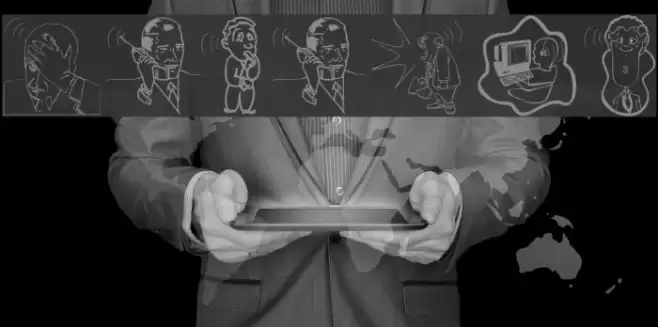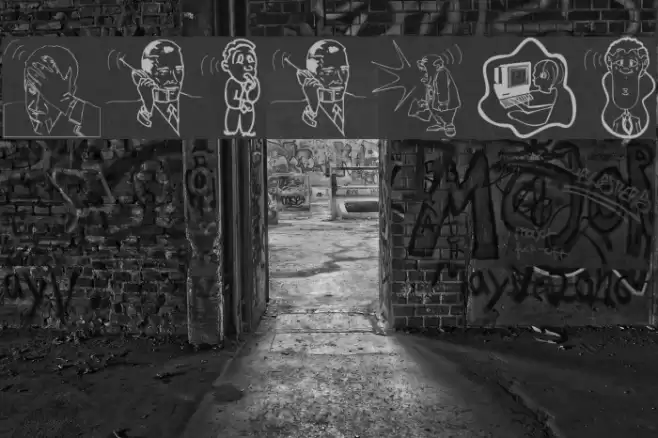
TeleCom Font
TeleCom Description
A decorative dingbat font featuring cartoon-style illustrations of people communicating via various telecommunication devices and gestures, including phones, computers, and expressive body language. The images are outlined with minimal shading, conveying a playful and informal tone.
Cartoon illustrations of telecommunication and communication scenes from Uncategorized fonts.
- Proposed Projects: Infographics, presentations, educational materials, comic strips, playful branding, and themed event posters.
- Overall Style: Playful, Decorative, Cartoonish
- Use Case: Icons, Decorative elements, Themed graphics